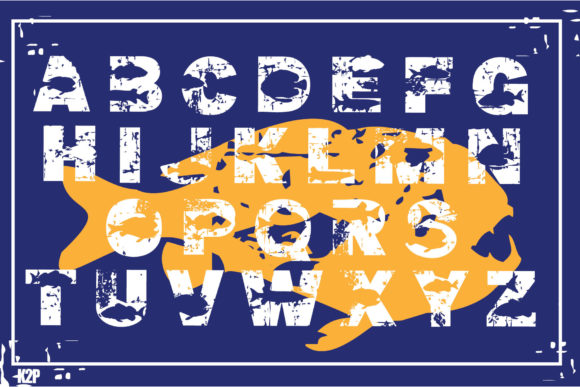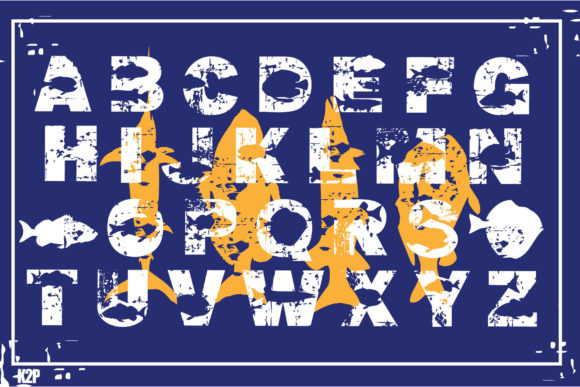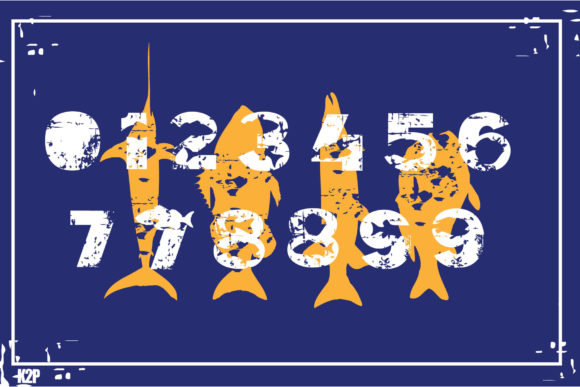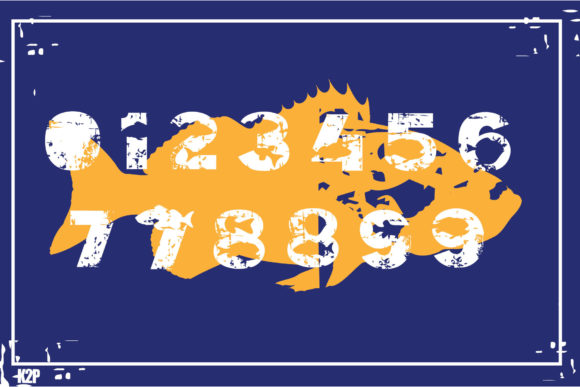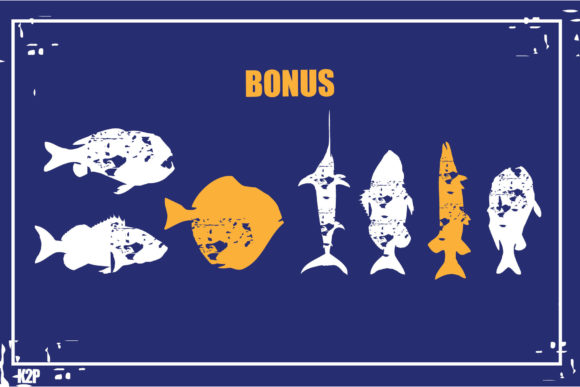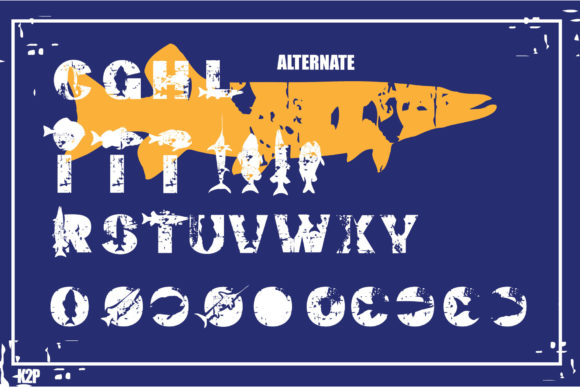
The Catch: Unleashing the Power of Fish Fighter Font
I’ll never forget the time I was working on a camping-themed project for a client, and I just couldn’t seem to find the right font. I scrolled through page after page of Google Fonts, but nothing seemed to capture the rugged, outdoorsy vibe I was going for. That’s when I stumbled upon Fish Fighter Font, and let me tell you, it was love at first sight! 💡
With its rough, textured look and assertive personality, Fish Fighter Font was the perfect fit for my project. And as I explored its features, I realized that it was so much more than just a pretty face. In this article, I’ll dive into the world of Fish Fighter Font, sharing my honest review, a practical guide on how to use it, and some helpful tips and tricks along the way.
Honest Review: The Good, the Bad, and the Quirky
- ✨ Rough, textured look that adds a touch of ruggedness to any design
- 🎉 Endless variations to keep your designs fresh and exciting
- 👍 Perfect for outdoor-themed designs, such as fishing, camping, or hiking
While Fish Fighter Font is an amazing addition to any design toolkit, there are a few things to keep in mind. For example, ⚠️ some users may find the font a bit tricky to read at smaller sizes, so be sure to test it out before committing to a specific design.
Additionally, 🤔 the font’s rough texture can be a bit overpowering if not balanced with other design elements. But with a little experimentation, you can easily overcome these limitations and unlock the full potential of Fish Fighter Font.
The Story Behind Fish Fighter Font: A Designer Inspiration
According to the font’s creators, Fish Fighter Font was inspired by the great outdoors. They wanted to create a font that captured the rugged, adventurous spirit of fishing and camping, while also being easy to read and versatile. The result is a font that’s perfect for any design project that needs a little bit of grit and personality.
| Font Name | Fish Fighter Font |
| Author | KtwoP |
Q: What is Fish Fighter Font?
A: Fish Fighter Font is a decorative font with a rough, textured look and assertive personality. It’s perfect for outdoor-themed designs, such as fishing, camping, or hiking.